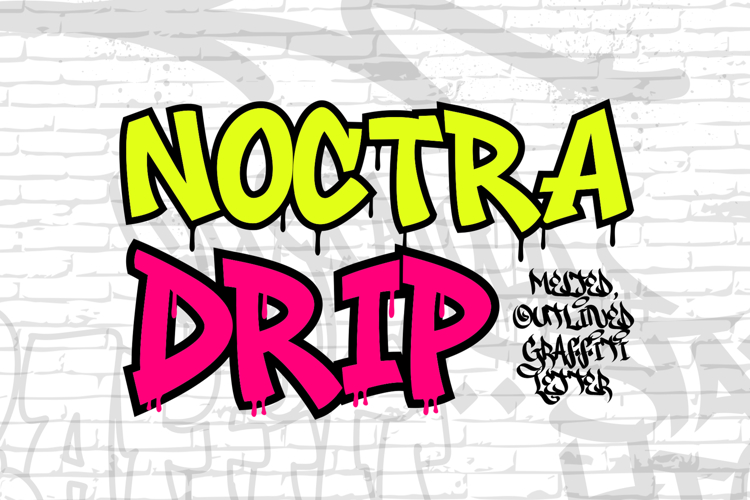
Noctra Drip - Melted Graffiti Font
Noctra Drip is a bold, all-caps graffiti font that explodes with rebellious energy and streetwise attitude. Inspired by the raw style of spray-can art, this font delivers two eye-catching styles: Outline and Melted Drip—perfect for adding gritty, handcrafted flavor to any design.
Whether you’re creating graffiti logos, hip-hop flyers, album covers, or urban-style posters, Noctra Drip brings the heat. The Outline style offers crisp, bold edges, while the Melted version resembles fresh paint dripping straight from the wall.
✦ Features:
- All Caps Format: Loud and aggressive, designed for impact.
- 2 Distinct Styles: Use Outline for clarity, Melted for chaos.
- Authentic Graffiti Vibes: Inspired by street tagging and mural art.
- Display Perfection: Great for apparel, branding, digital art, and more.
- Punctuation & Multilingual: Fully usable across global projects.
Noctra Drip isn’t just a font—it’s a voice that shouts style. Add a twist of rebellion and flair to your next creative project!